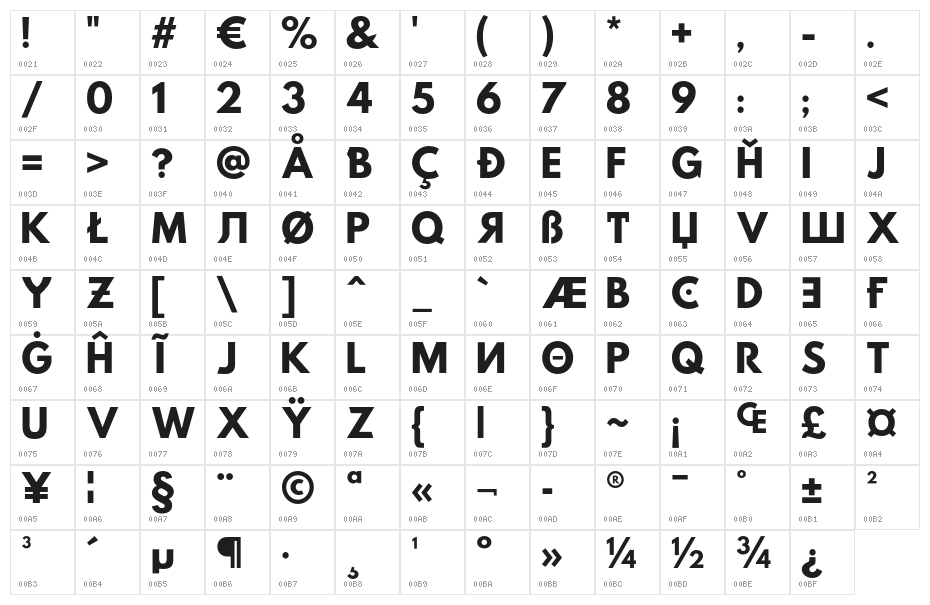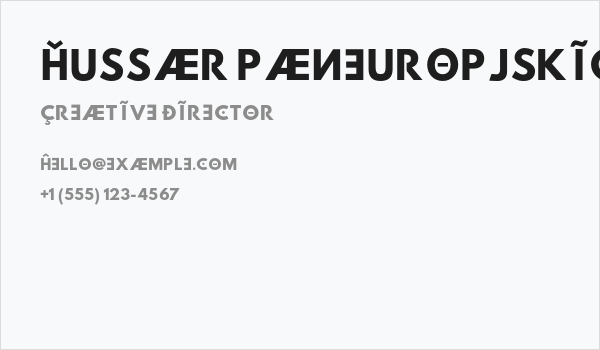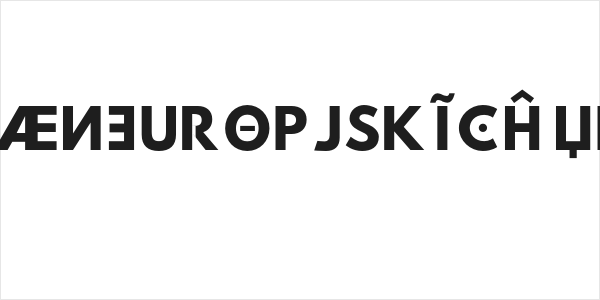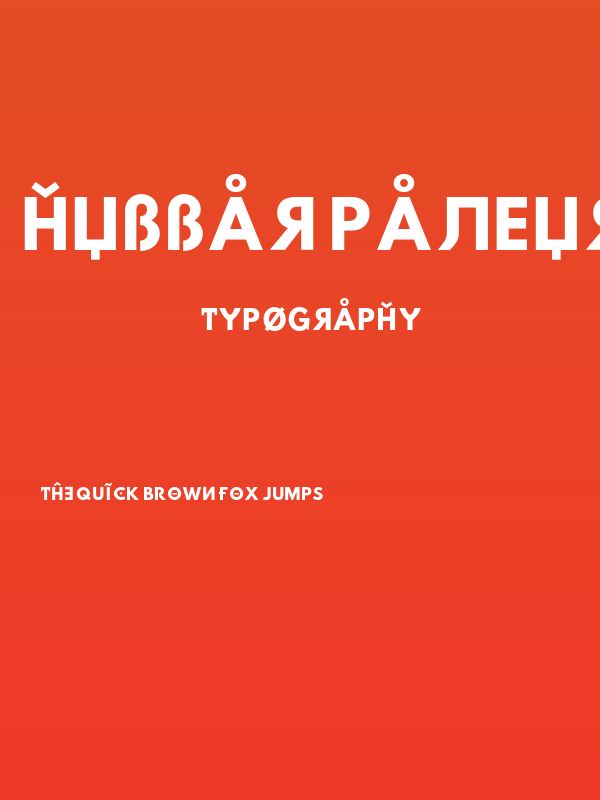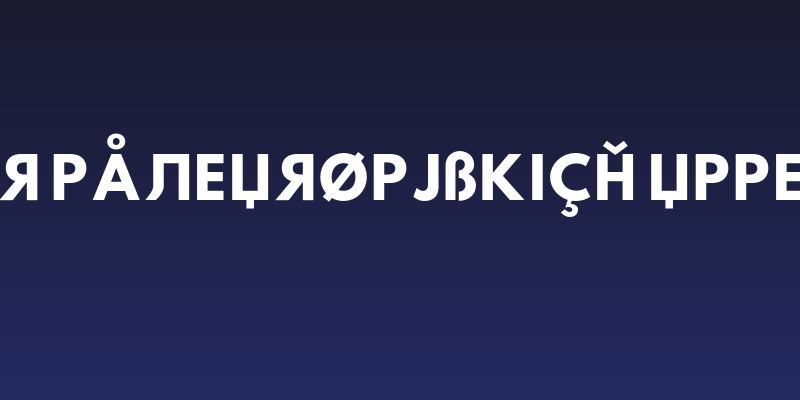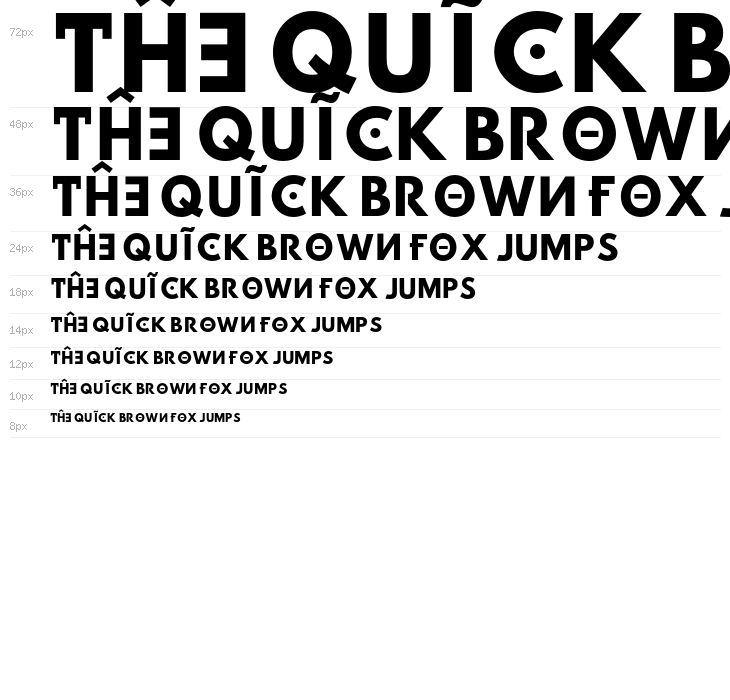
Hussar Paneuropjskich Uppercase Font
Hussar Paneuropjskich Uppercase Description
This font features a bold and striking design with a modern aesthetic. The characters are crafted with clean lines and a uniform stroke width, giving it a strong and impactful presence. The uppercase letters exhibit a geometric style with sharp angles and a consistent height, while the lowercase letters maintain a similar structure, ensuring readability and cohesion. The numerals are equally bold, matching the overall style of the alphabet. Special characters are included, providing versatility for various uses. The font's design is suitable for a wide range of applications, from digital to print media.